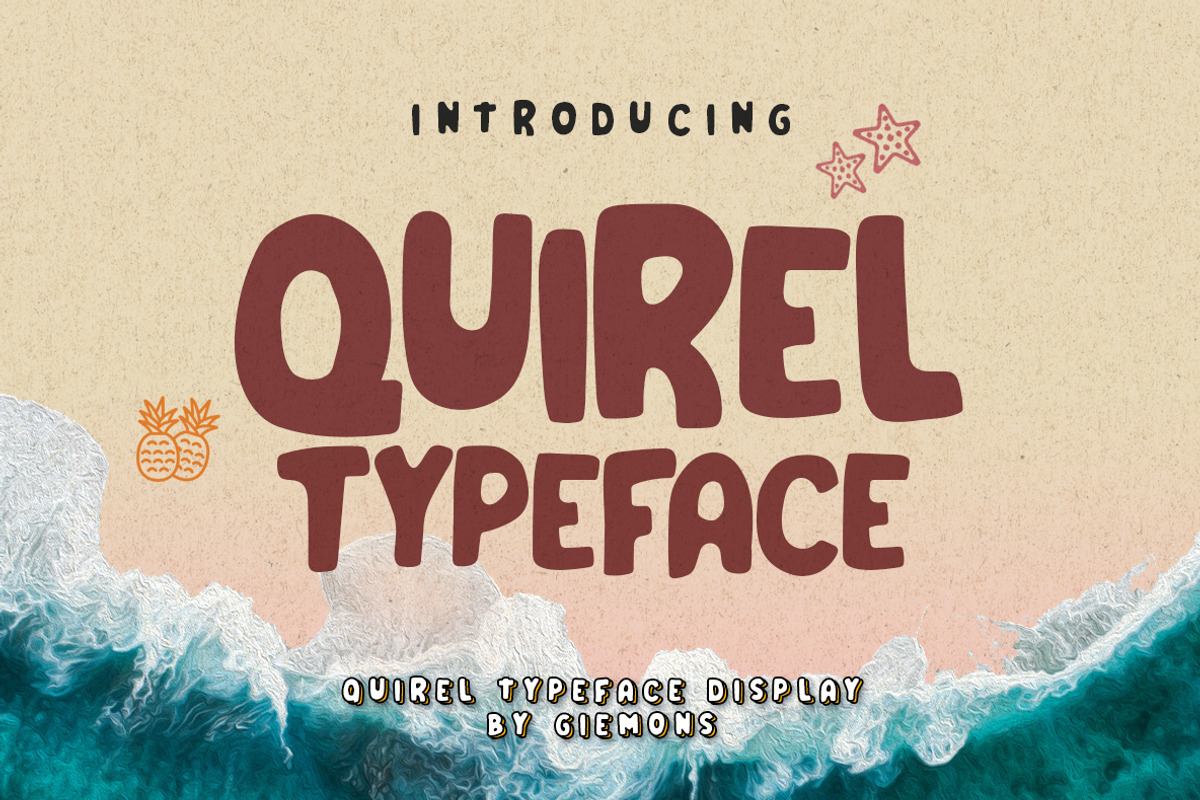
Quirel Typeface Free Download
Please note, you must purchase this font for commercial use. However, you can easily download Quirel Typeface Free Download for personal use and testing purposes. Quirel Typeface is a sophisticated and modern font that combines elegance with readability. Perfect for a variety of design projects, such as branding, editorial layouts, logos, and digital content, this font features clean, crisp letterforms that offer versatility and professionalism. Whether you're working on a luxury brand identity, a high-end magazine, or a minimalist website, Quirel Typeface Free Download will bring a refined and polished touch to your work. Download Quirel Typeface Free Download today and explore its potential before opting for a commercial license.